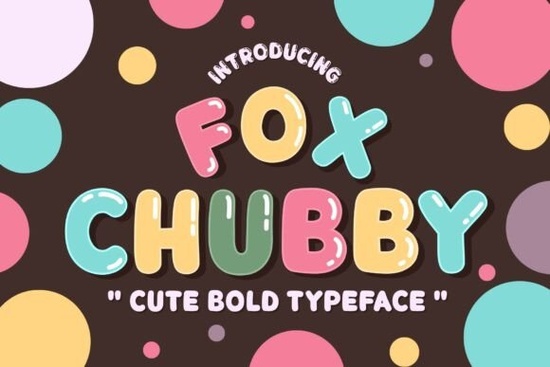
If you're looking for a font that brings warmth, whimsy, and a touch of childlike joy to your creative projects, Fox Chubby Font is worth a closer look. Designed with crafters, small business owners, and digital creators in mind, this bubbly typeface family offers four distinct styles that work together seamlessly whether you're making birthday invitations, printable classroom decor, or custom apparel.
Unlike overly complex display fonts that can feel overwhelming, Fox Chubby keeps things friendly and approachable. Each letterform feels hand-drawn yet polished, making it ideal for designs that need to feel personal without sacrificing professionalism. And because it includes multiple weights and effects, you get plenty of flexibility without having to hunt for complementary fonts.
What makes Fox Chubby stand out from other playful fonts?
Many cute fonts lean too far into novelty and become hard to read or limited in use. Fox Chubby avoids that trap by balancing charm with clarity. The four included styles each serve a clear purpose:
- Fox Chubby Regular – A solid, chunky base that’s perfect for headlines, titles, or any place you want bold, readable text with personality.
- Fox Chubby Bubble – Adds a glossy, almost candy-like finish. Great for adding dimension without needing extra effects in your design software.
- Fox Chubby Outline – A clean hollow version that’s excellent for coloring in (by hand or digitally), layering over backgrounds, or creating minimalist accents.
- Fox Chubby Shadow – Comes with a soft drop shadow built right in, giving your text instant depth ideal for stickers, labels, or social media graphics where you want subtle pop.
This versatility means you can mix and match within the same project. Try using the Outline over a colorful background with the Shadow layered slightly offset for a DIY 3D effect no advanced skills required.
Who should use Fox Chubby and how?
If your work involves anything aimed at kids, celebrations, or cheerful branding, this font fits naturally. Here are just a few real-world uses:
- Designing birthday party invites or cupcake toppers that feel handmade but look polished
- Creating printable classroom resources like flashcards, reward charts, or name tags that students actually enjoy looking at
- Making Etsy product labels for bath bombs, cookies, or greeting cards where cuteness adds perceived value
- Producing KDP activity books or coloring pages that appeal to both children and parents
- Crafting YouTube thumbnails or Instagram posts that stand out with soft, inviting typography
It also plays well with cutting machines like Cricut and Silhouette. The clean outlines and consistent stroke widths mean fewer issues when cutting vinyl or heat-transfer material especially with the Outline and Regular versions.
If you enjoy fonts with character but don’t want something too seasonal, Fox Chubby is more versatile than themed options like the Witch Halloween font. And while it shares a handcrafted warmth with fonts like Chalky Teacher, its rounded, bubbly shape gives it a distinctly joyful vibe that works year-round.
Quick tips before you start designing
To make the most of Fox Chubby without overdoing it:
- Use it sparingly for headlines its charm shines in titles, logos, or short phrases, not body text.
- Pair it with simple sans-serifs like Montserrat or Nunito for contrast and readability in longer layouts.
- Experiment with color the Bubble and Shadow styles look especially lively in pastels or bright candy tones.
- Layer styles intentionally for example, place Outline behind Regular with a slight offset to mimic a custom shadow effect.
Whether you’re a teacher making classroom decor, a mompreneur launching a sticker shop, or a designer building a brand for a children’s product line, Fox Chubby adds a genuine sense of delight without feeling gimmicky. It’s the kind of font that makes people smile and that’s always good for business.